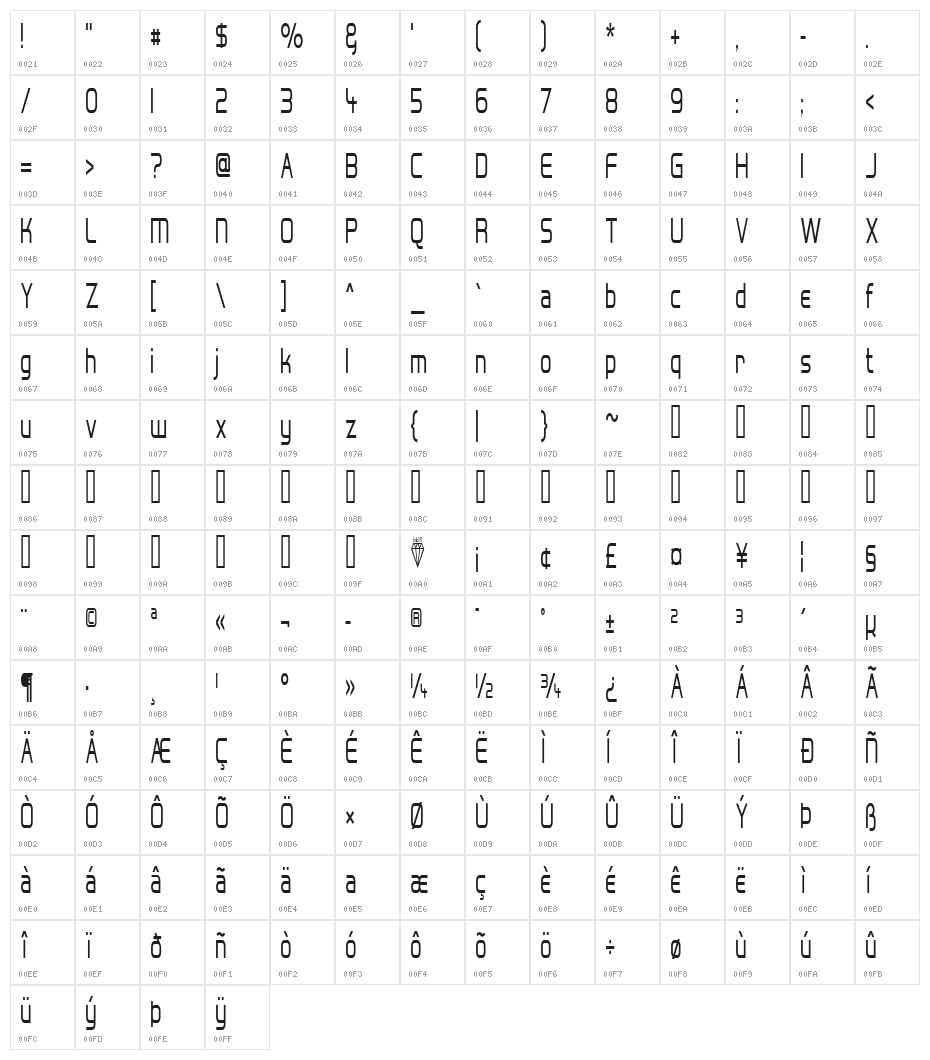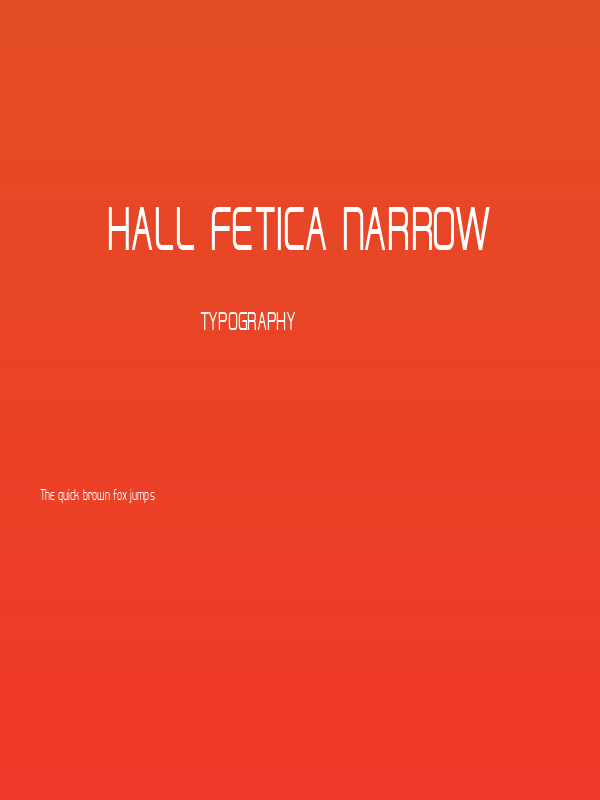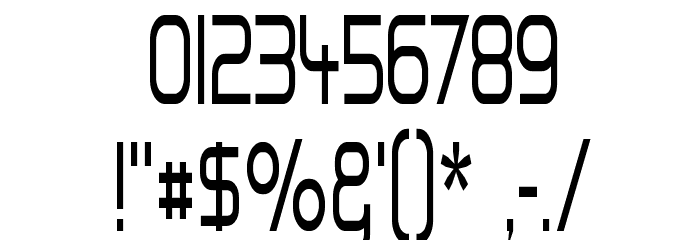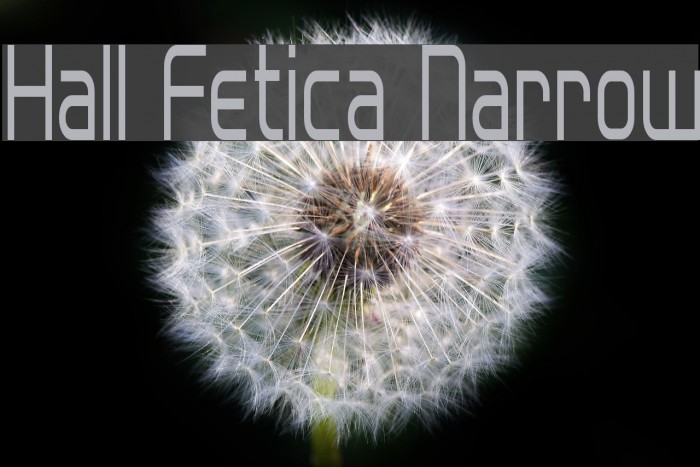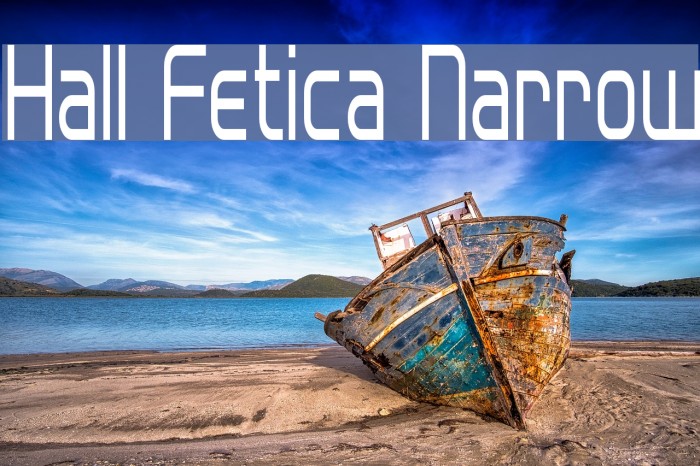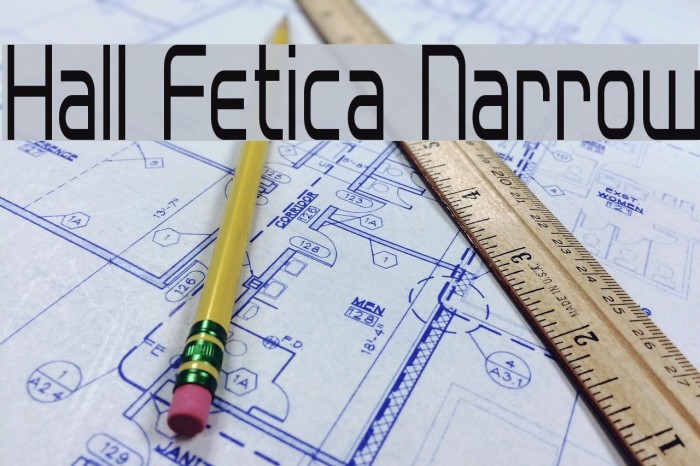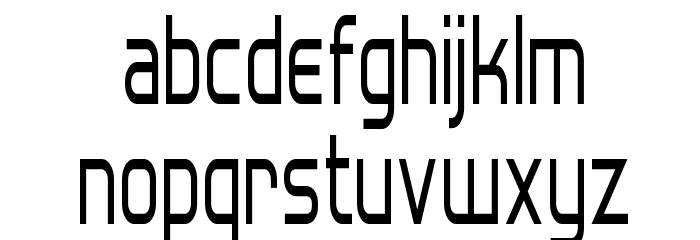
Hall Fetica Narrow Font
Hall Fetica Narrow Description
This font features a modern, geometric sans-serif style with a narrow width, giving it a sleek and contemporary appearance. The characters are cleanly designed with consistent stroke widths, contributing to a uniform and professional look. The uppercase letters are tall and slightly condensed, while the lowercase letters maintain a similar narrow profile, enhancing readability. The numerals and special characters are crafted with the same precision, ensuring a cohesive visual identity across all text elements. This font's minimalist design makes it versatile for various applications, from digital interfaces to print media.
| Use Case | Headlines, Body text, Logos |
| Proposed Projects | Ideal for tech branding, digital interfaces, modern print layouts, and minimalist design projects. |